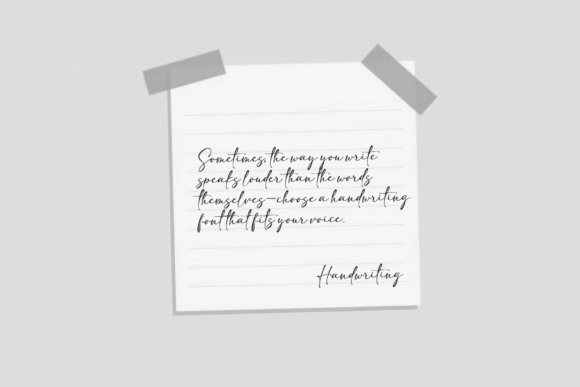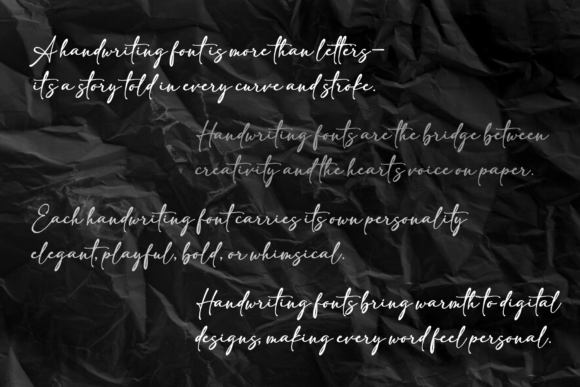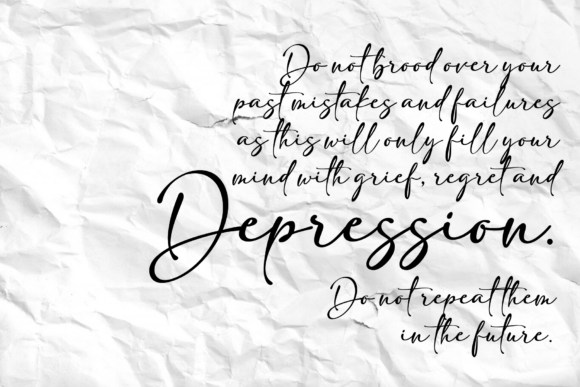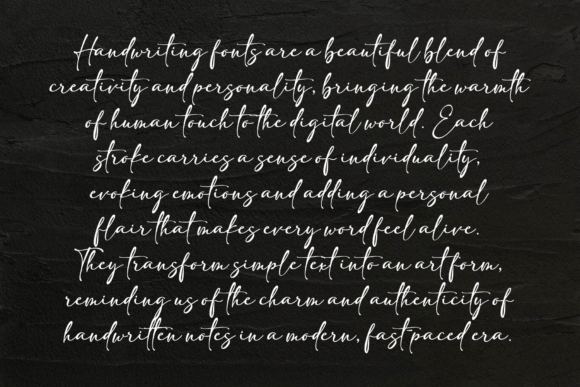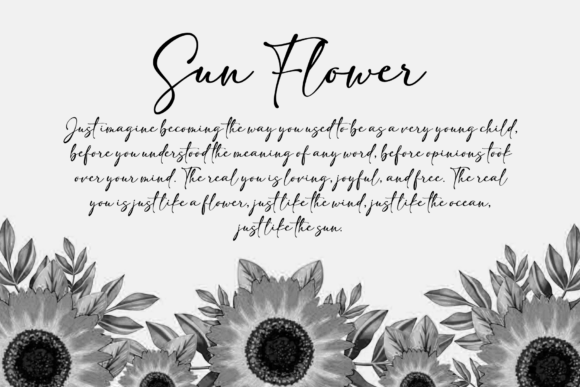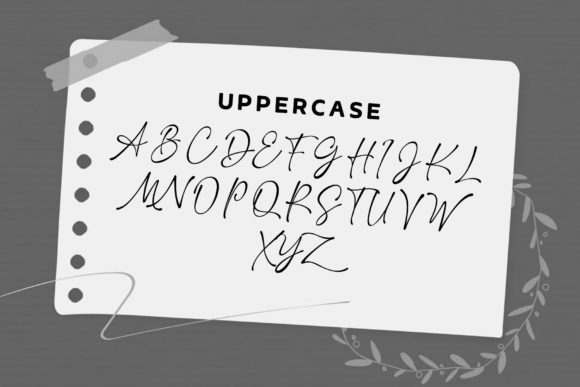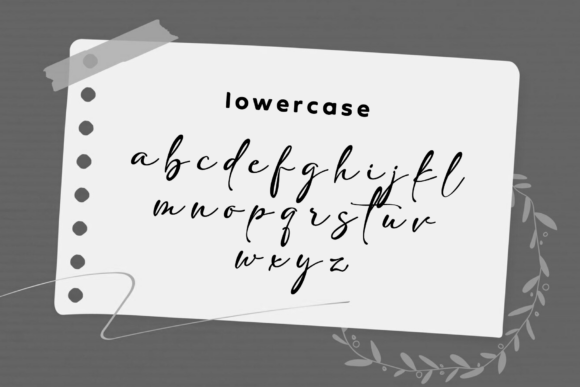
Athaya Font
Athaya is a script and handwriting font is a typeface that mimics the fluidity and personal touch of cursive writing or natural handwriting. These fonts are often elegant, expressive, and decorative, making them ideal for invitations, branding, packaging, logos, and artistic designs. Athaya Script fonts can range from formal calligraphy styles with intricate flourishes to casual, modern handwriting fonts that resemble quick pen strokes.
They often evoke emotions of warmth, sophistication, or creativity, adding a human touch to digital typography. Handwriting fonts, on the other hand, tend to be more informal and organic, with variations in stroke weight and letter connections that give them an authentic, handwritten feel. Whether elegant or playful, script and handwriting fonts bring personality and uniqueness to any design project.